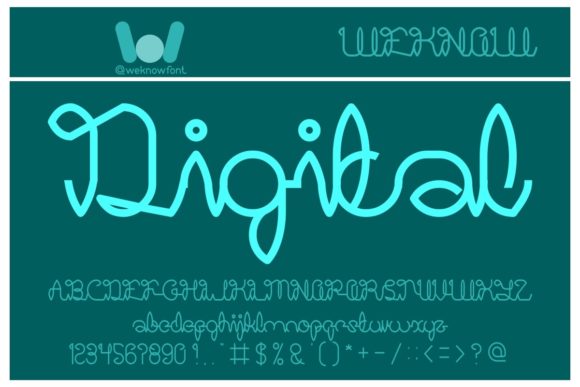
Immerse yourself in the world of digital artistry with Digital Handmade Font—a captivating display font that breathes life into your creative projects. Experience the fusion of elegance and edginess, as this font dances across your designs with a unique charm. Unleash your imagination and let Digital Handmade Font elevate your visual communications.
Step into a realm where creativity knows no bounds. Digital Handmade Font is your gateway to expressing yourself in a bold and captivating manner. Its striking characters add an irresistible touch of individuality to logos, posters, music titles, movie titles, games, and magazine covers. Elevate your designs with a font that commands attention and leaves a lasting impression.
With Digital Handmade Font, your Instagram presence transforms into a visual masterpiece. Its alluring style captivates audiences, making your posts stand out from the crowd. Engage your followers with eye-catching stories, quotes, and graphics that resonate with their aesthetic sensibilities. Let Digital Handmade Font be your secret weapon for creating an Instagram feed that radiates creativity and captivates hearts.
Journey through the limitless possibilities of Digital Handmade Font. Its versatility knows no bounds, adapting seamlessly to book covers, comics, cartoons, YouTube videos, websites, and any other creative endeavor you can imagine. Embrace the freedom to express your unique style, whether it's whimsical, playful, or downright stunning.